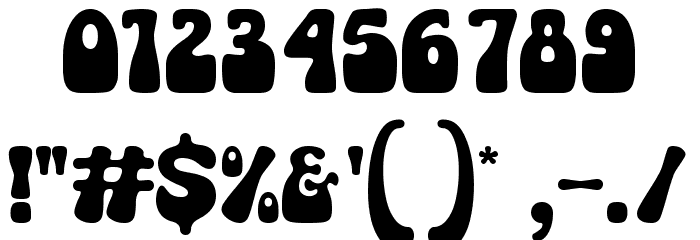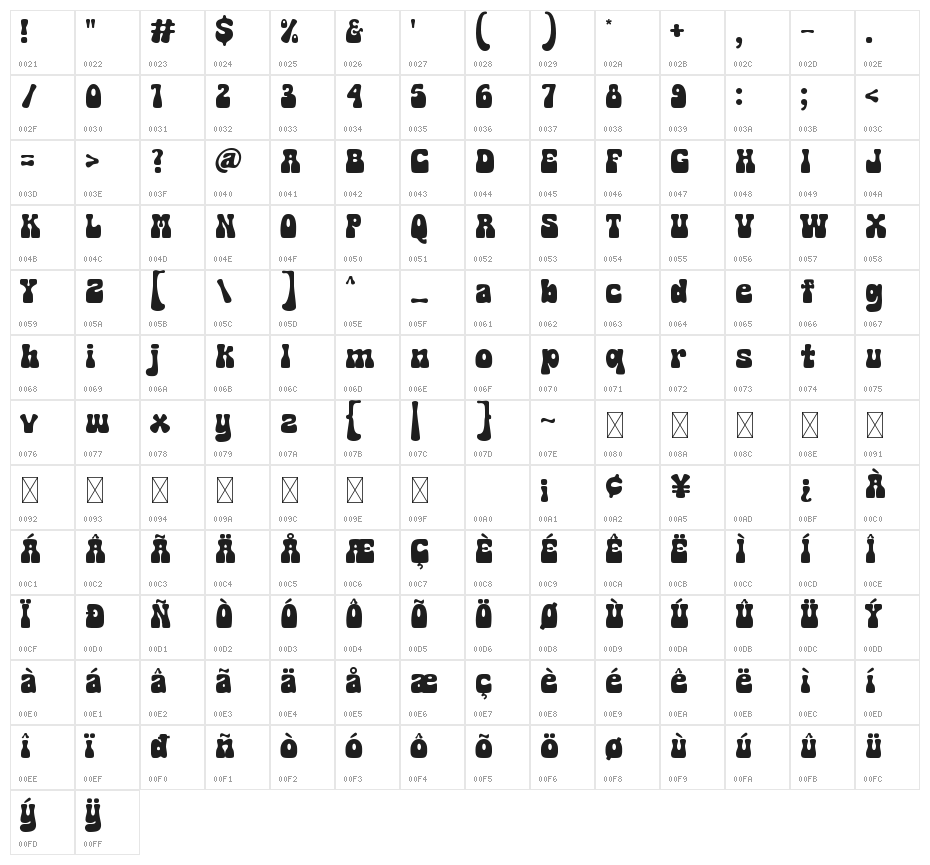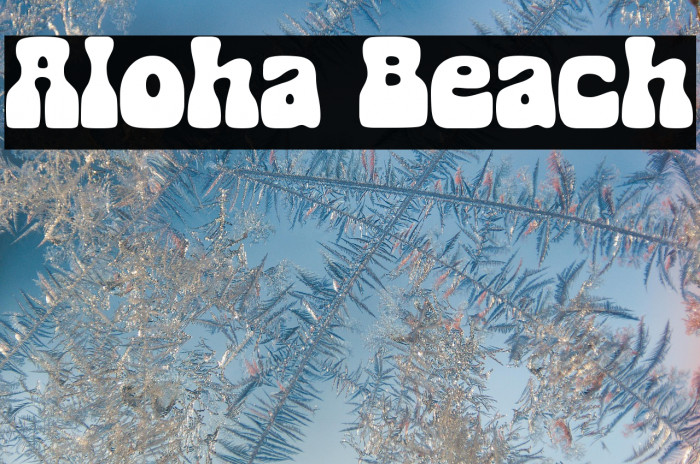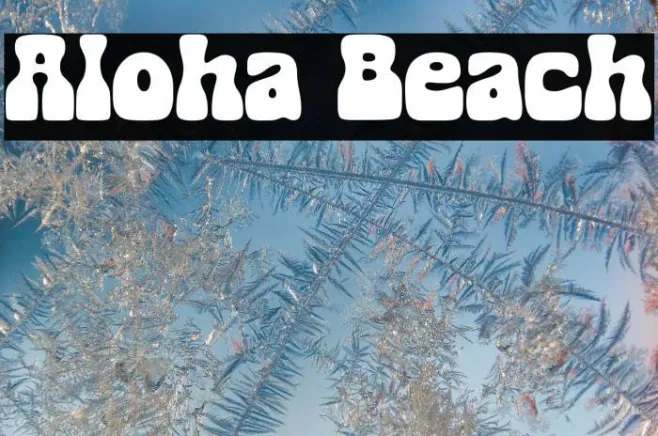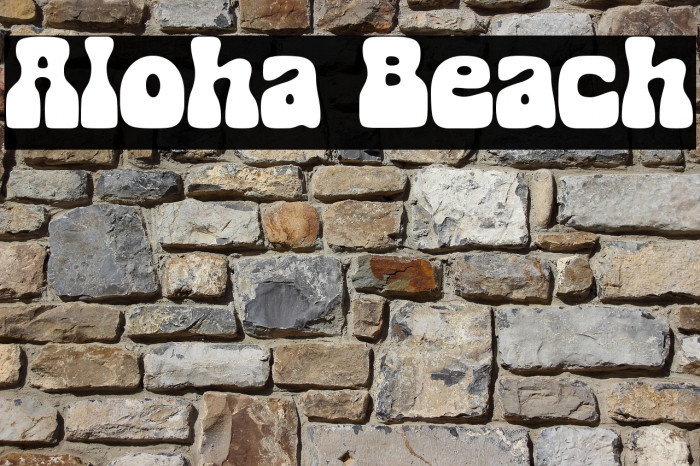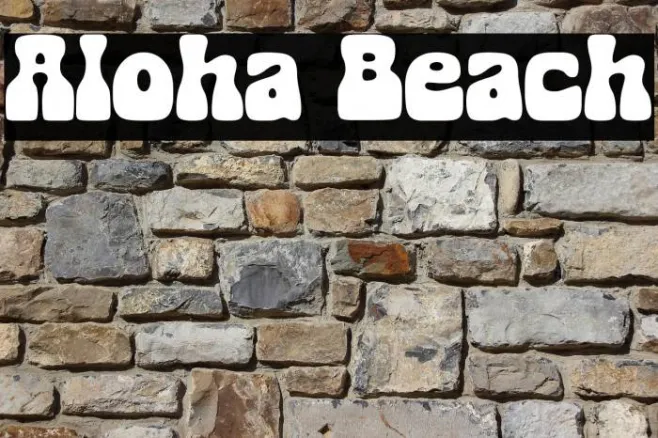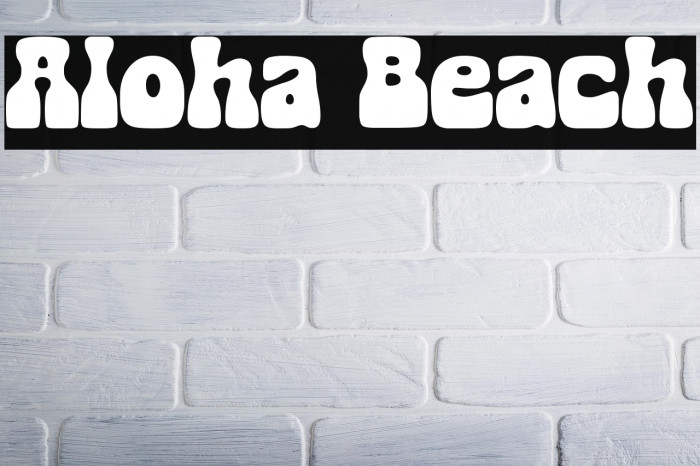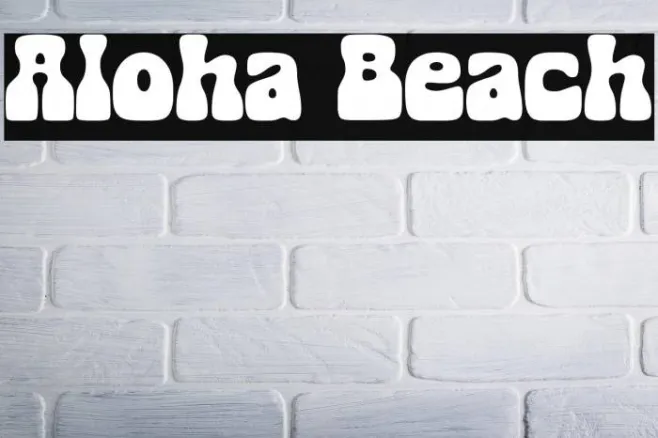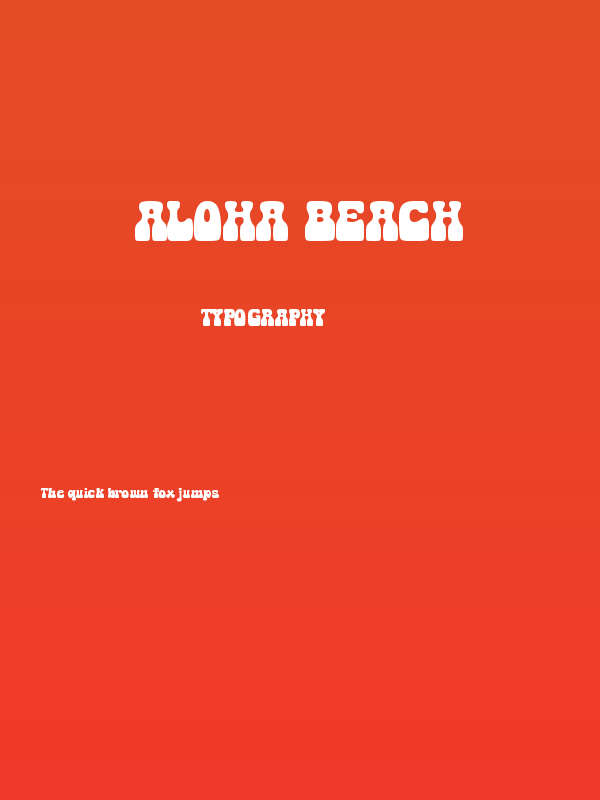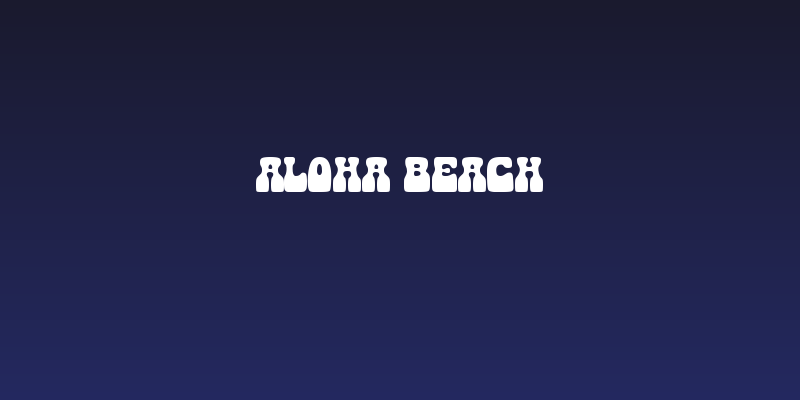
Aloha Beach Font
Aloha Beach Description
This font exudes a playful and bold character with its thick, rounded forms and bubbly appearance. The letters are heavily weighted, giving a sense of fun and whimsy, reminiscent of retro beach vibes. The uppercase and lowercase letters maintain a consistent style, with rounded edges and a slightly condensed form. Numbers and special characters follow the same design ethos, ensuring uniformity across all glyphs. The overall look is eye-catching and ideal for designs that aim to capture a carefree, relaxed atmosphere.
| Overall Style | Retro, Playful |
| Proposed Projects | Ideal for beach-themed posters, children's book covers, playful branding, and retro event flyers. |